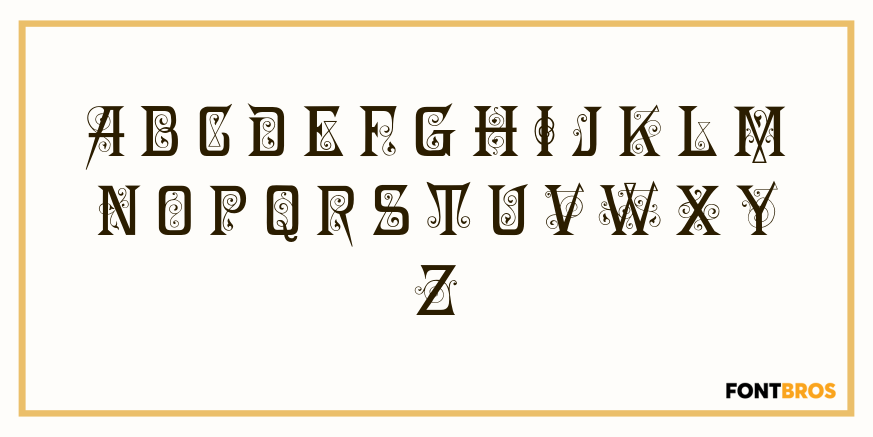
Penelope
Font Family by Solotype
This was originally brought out as a caps-only font, but later the foundry scrounged up a lowercase that wasn't our idea of a very good match. So we cleaned up the caps and made them a bit bolder, then drew a harmonizing lowercase.